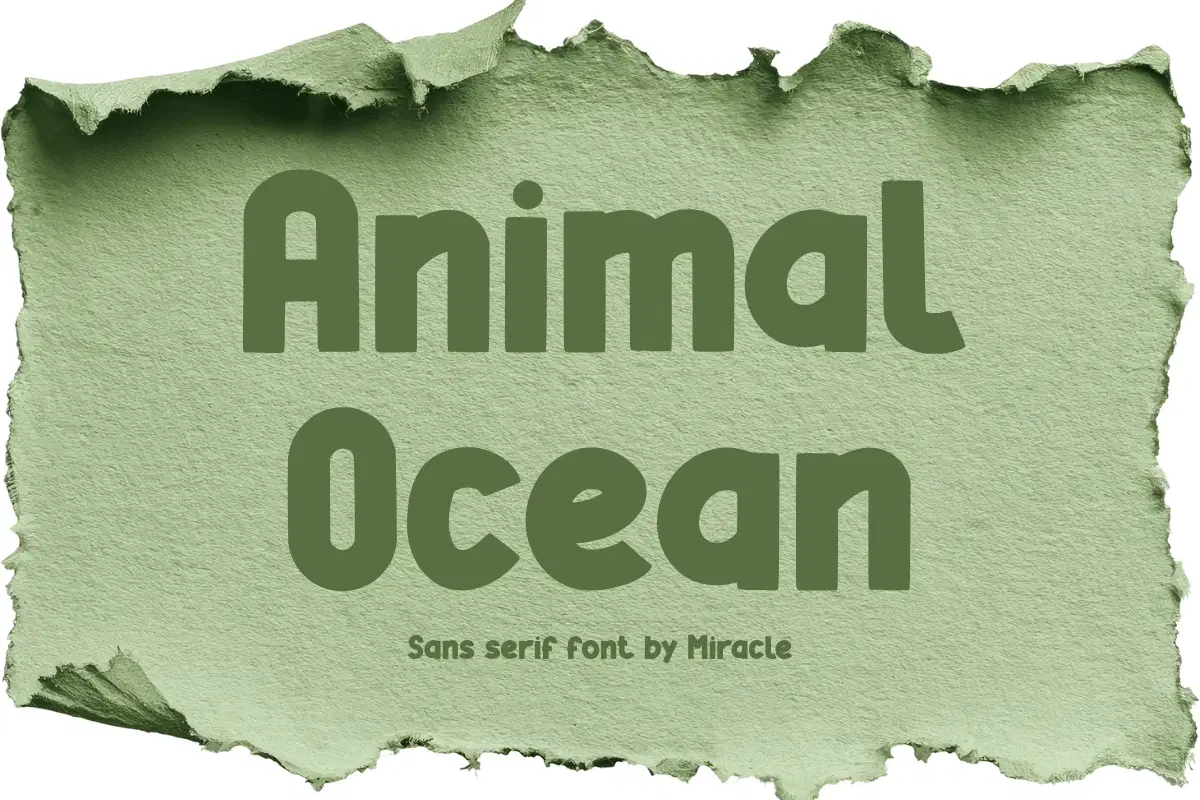
Dive into creativity with Animal Ocean, a bold sans serif font designed by Miracle. Inspired by organic shapes and modern curves, this typeface strikes the perfect balance between playful energy and clean readability.
Whether you are designing eye-catching posters, eco-friendly branding, children's book covers, or social media graphics, Animal Ocean adds a unique, friendly personality to every pixel. Its thick strokes and soft edges make it a "must-have" for designers looking to stand out with a touch of nature-inspired flair.